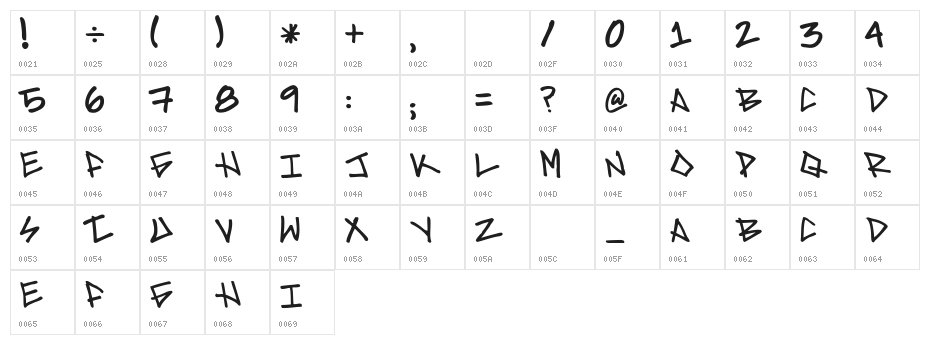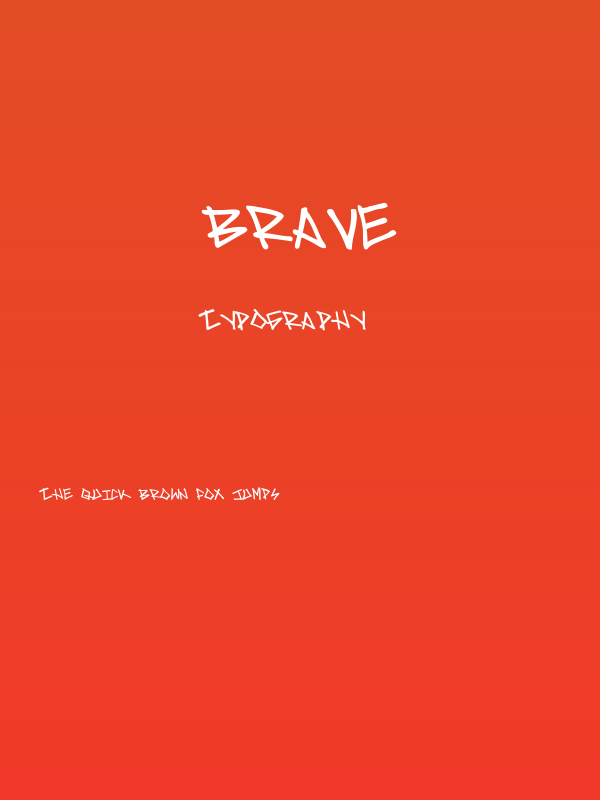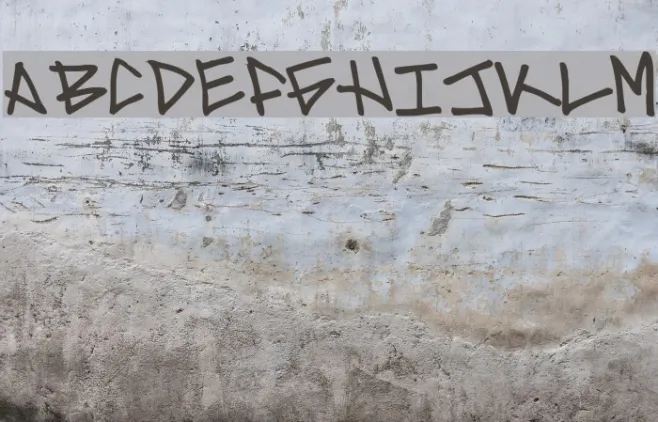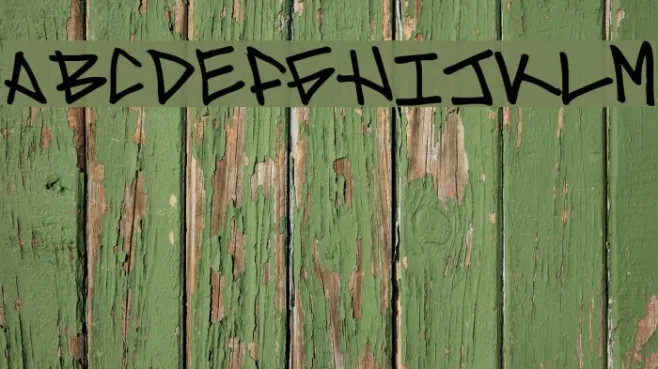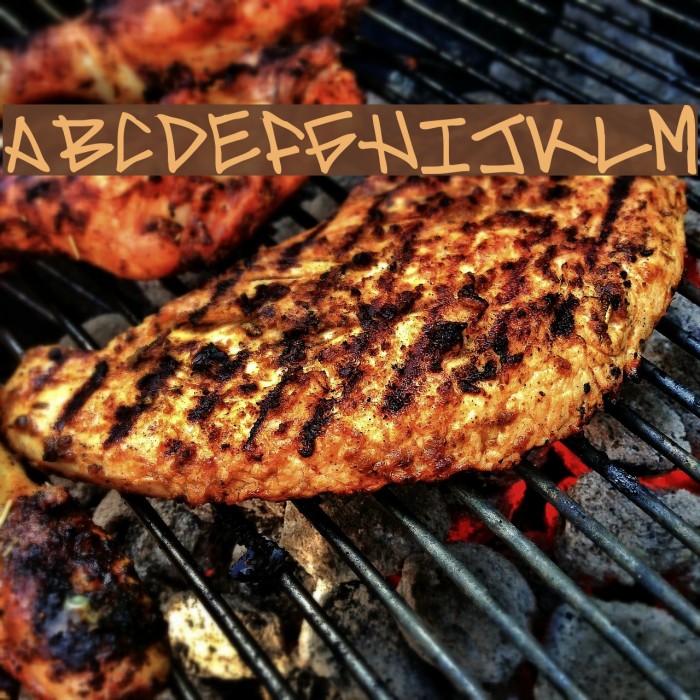
Brave Font
Brave Description
This font exhibits a bold, energetic style with a handwritten appearance. The characters are slightly slanted, giving a dynamic and informal feel. The strokes are thick and consistent, providing a strong visual impact. Each letter has a unique, playful twist, making it stand out in creative projects. The numbers and special characters maintain the same lively style, ensuring uniformity across all text elements. This font is perfect for projects that require a personal touch or a sense of spontaneity.
| Proposed Projects | Ideal for posters, greeting cards, children's books, and branding that requires a personal and energetic touch. |